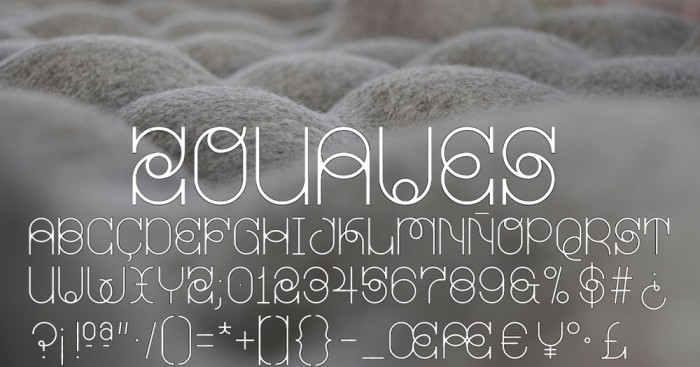
• I had dreamed something like this in FS...
I had dreamed something like this in FS... Nineteen years ago I drew very similar letters in a box for the shells collected on the beach by my children. Now the box has been lost, but the memory remains. And the letters have been built almost equal to the memory in this font. Thanks FS!
Very cool.
Love the & and the ?
What a masterpiece! Very neat rounded letters and at the same time, easy to read font. 10/10. Nice job.
A beautiful memory, a beautiful font.
This is beautiful, a fairy tale for the eyes <3 I'm pleased that the new FS made your dream become reality :) I love the look of ß, Æ, ?, 8 but my favourite is Z.  11/10 to "maître elmo"
A very good font, master!
Pretty letters with curves and loops. Was it inspired by intraocular lenses? 10/10
Well deserved TP!
nice job.
Whoa, the master already gets his tool.
How do you make the line block?  The really thin one for the stick on the "L" for example.
Great curves and design/rules!
@Frodo7: 10/10 (vector art) + 10/10 (relationship).
Nice, can you add lowercase?